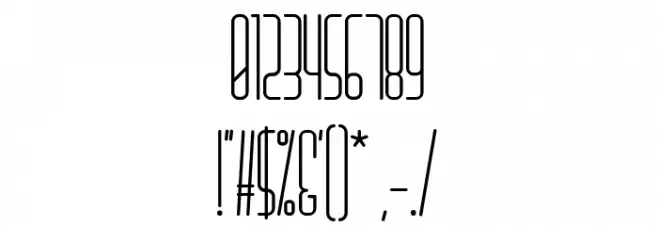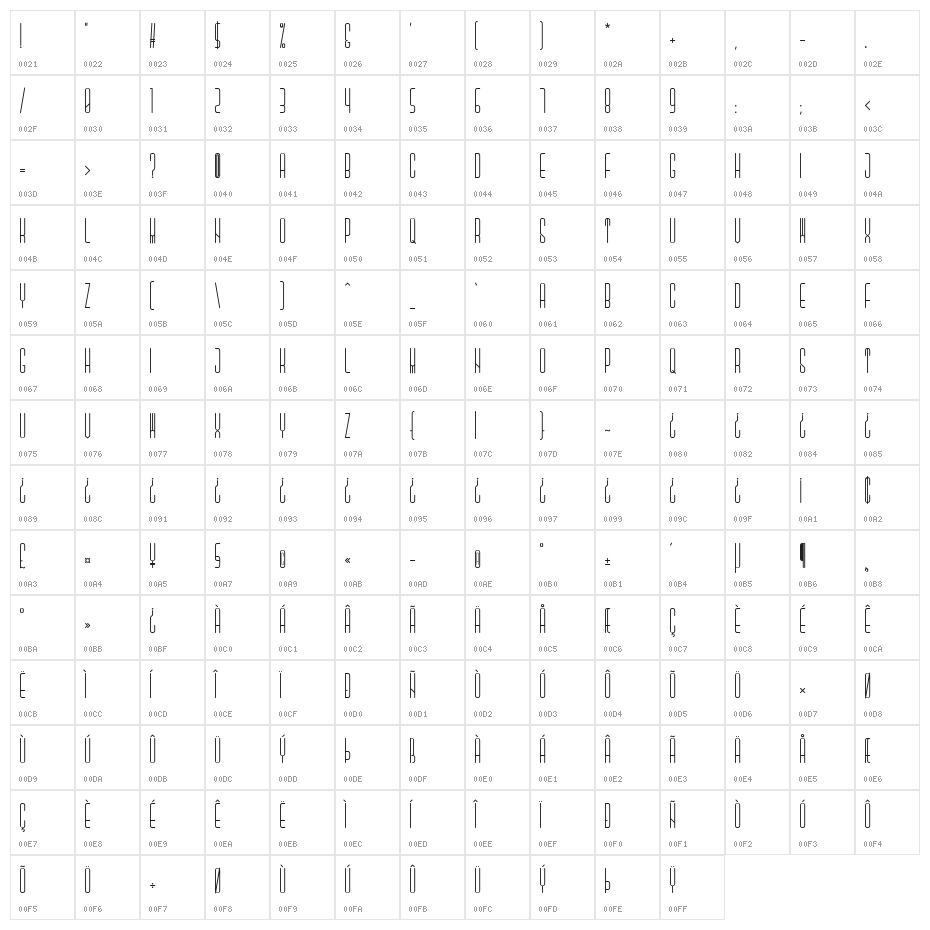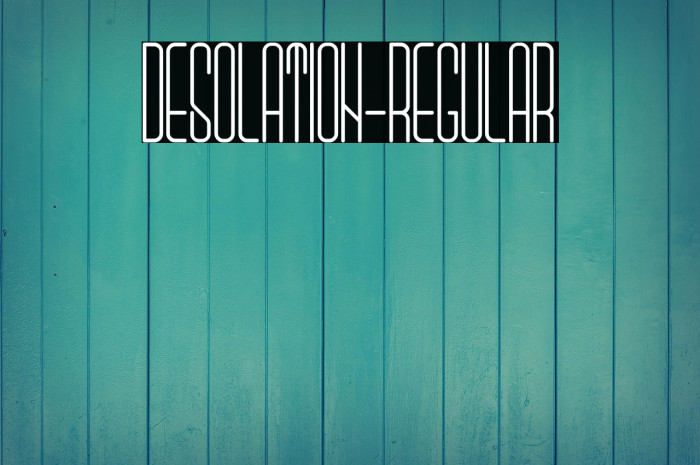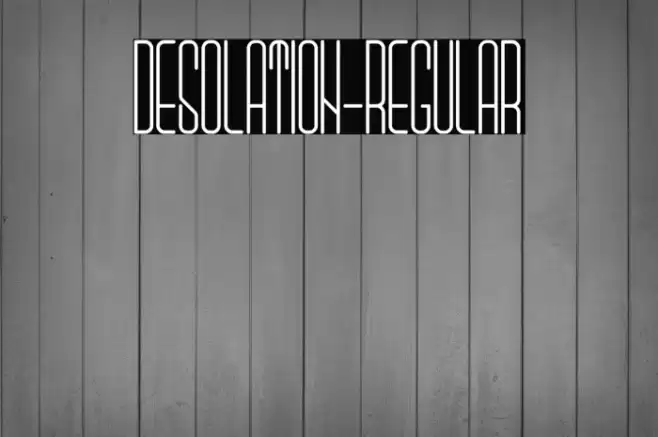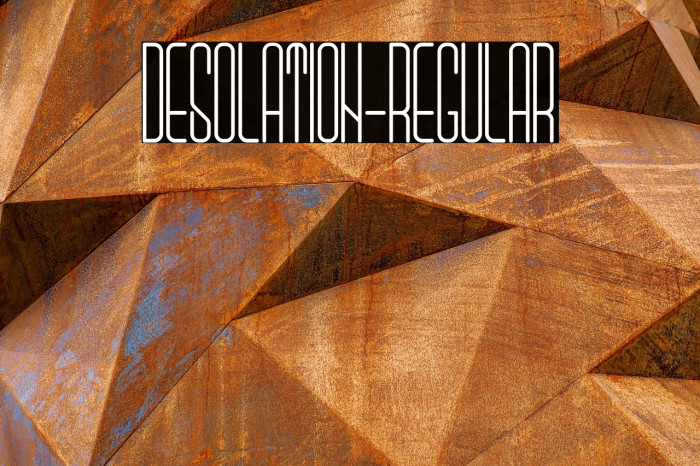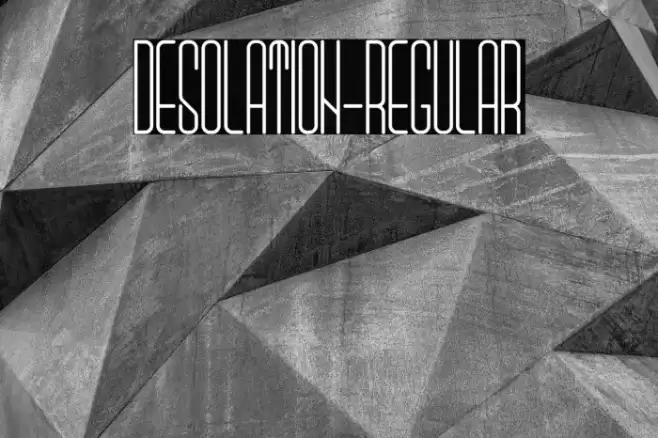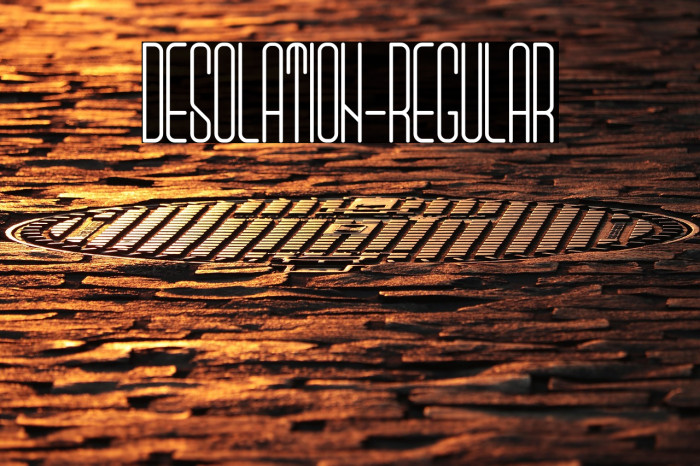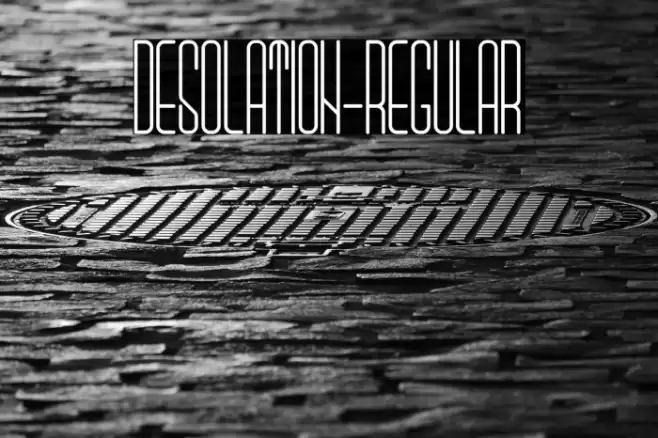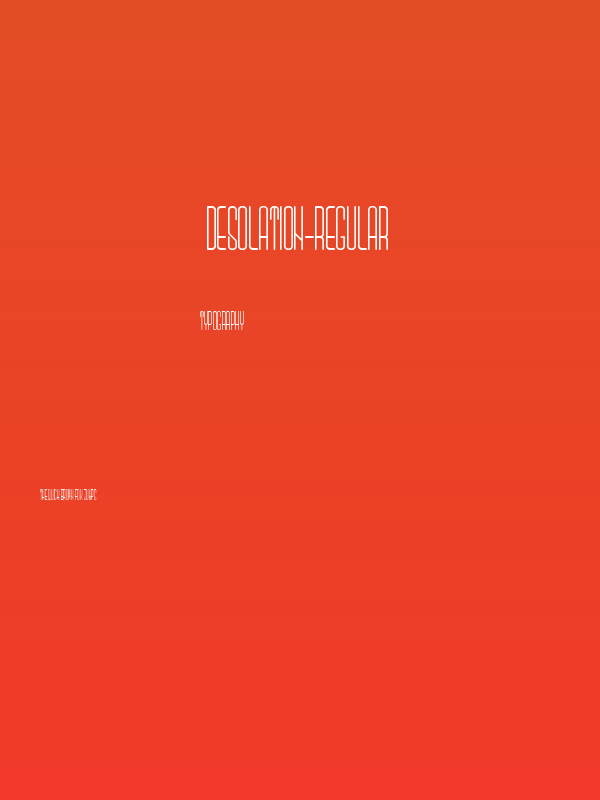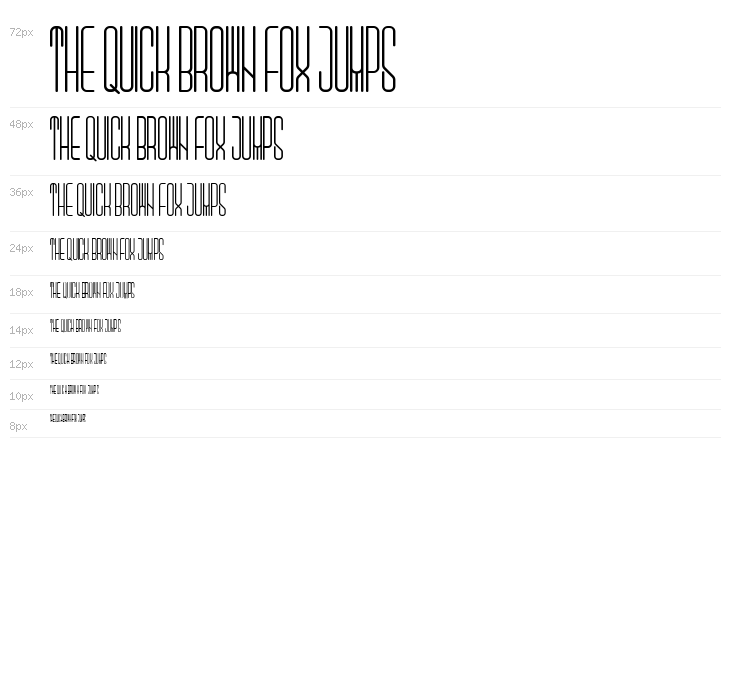
Desolation-Regular Font
Desolation-Regular Description
This font features a unique, elongated design with a modern and futuristic feel. The characters are tall and narrow, creating a sleek and sophisticated appearance. The lines are clean and consistent, with a uniform stroke width that adds to its contemporary style. The uppercase and lowercase letters maintain a cohesive look, while the numbers and special characters integrate seamlessly into the overall design. This font's distinctiveness makes it suitable for projects that require a bold statement.
| Proposed Projects | Ideal for branding, posters, album covers, and any project needing a modern, standout typeface. |